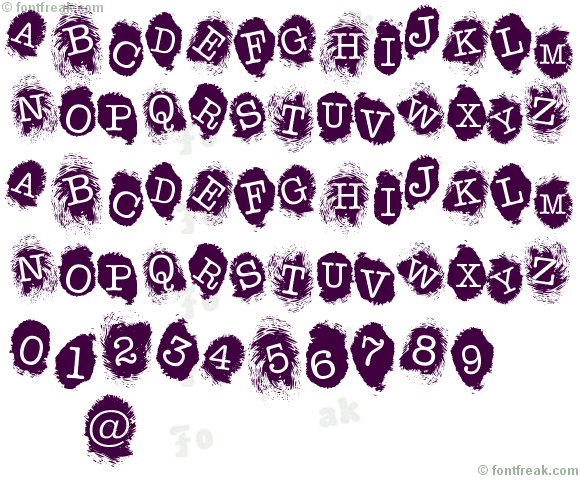
FE-FingerprintsInside
The FE-FingerprintsInside font by Font Environment is a striking display typeface characterized by its creative, grungy style. This font falls into the decorative category, making it ideal for projects that require a unique and eye-catching aesthetic. The visual characteristics of FE-FingerprintsInside include a bold stroke weight with a rough texture, giving it an organic, hand-crafted feel. The letters are spaced closely together, which enhances their visual impact, while the irregularities in the letterforms mimic the appearance of fingerprints, adding an intriguing element to any design.
This font is particularly well-suited for various creative applications. It can be used effectively for urban-themed posters, where its edgy style resonates with a contemporary audience. Additionally, FE-FingerprintsInside works wonderfully for artistic flyers, capturing attention and making bold statements. Small business owners can use it for branding materials, such as business cards or packaging, to convey a distinctive personality. It's also an excellent choice for social media graphics, allowing content creators to stand out in a crowded digital landscape.
The target audience for this font includes graphic designers seeking to add a unique flair to their projects, as well as small business owners who want to communicate a creative and modern identity. Content creators looking for a distinctive font to elevate their visual storytelling will also find FE-FingerprintsInside appealing.
What sets the FE-FingerprintsInside font apart is its ability to blend artistry with functionality. It captures attention while maintaining readability, making it a versatile choice for various design needs. For those interested, the FE-FingerprintsInside font free download is readily available, inviting creativity and innovation in your next project.